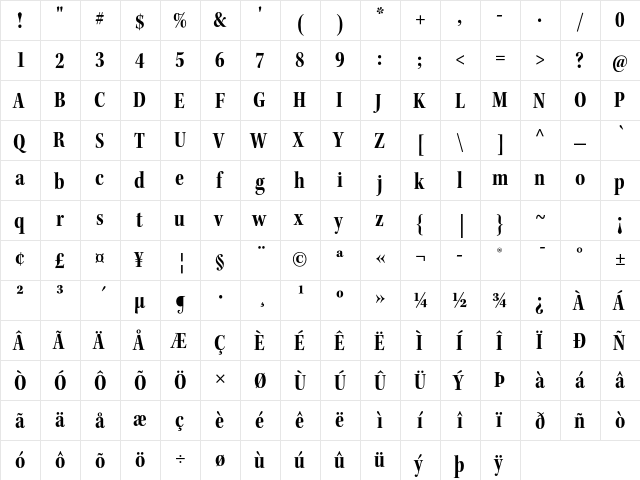
Kepler Std Bold Condensed Subhead
| Designer | Robert Slimbach |
Design Context for Kepler Std Typeface
Kepler Std offers clean, dependable letterforms without strong stylistic allegiance, making it a practical choice for designers who need flexibility. Its bold stroke weight gives it real presence on the page. Its narrow stance lets it pack a punch even in space-constrained designs.